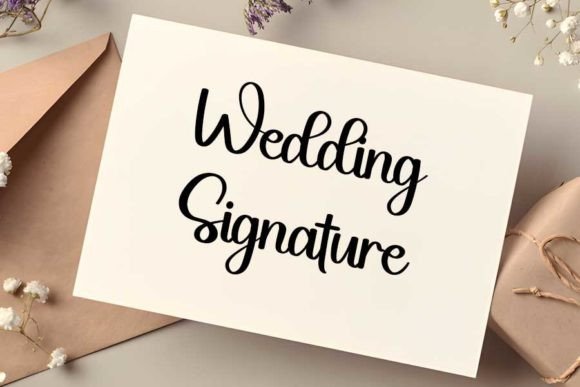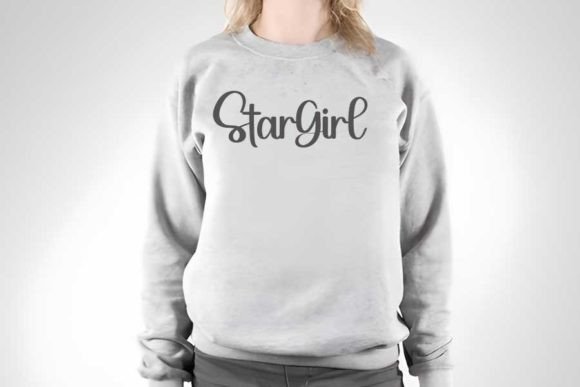
Introduction to Relinsky Font
Relinsky is a sweet and friendly handwritten font.
Fresh and casual, this font is ideal for writing wedding invitations, cards, or any other design that might need a lovely touch .
Key Features of Relinsky Font